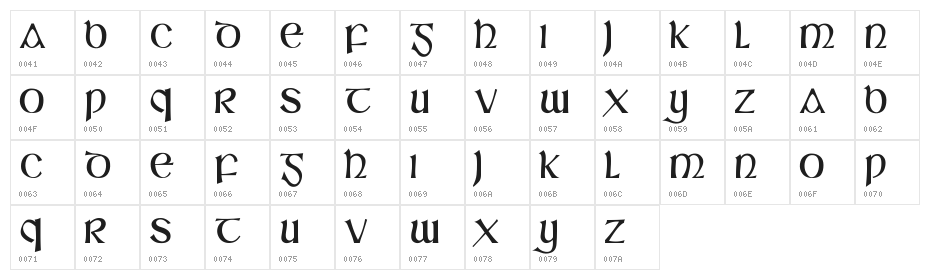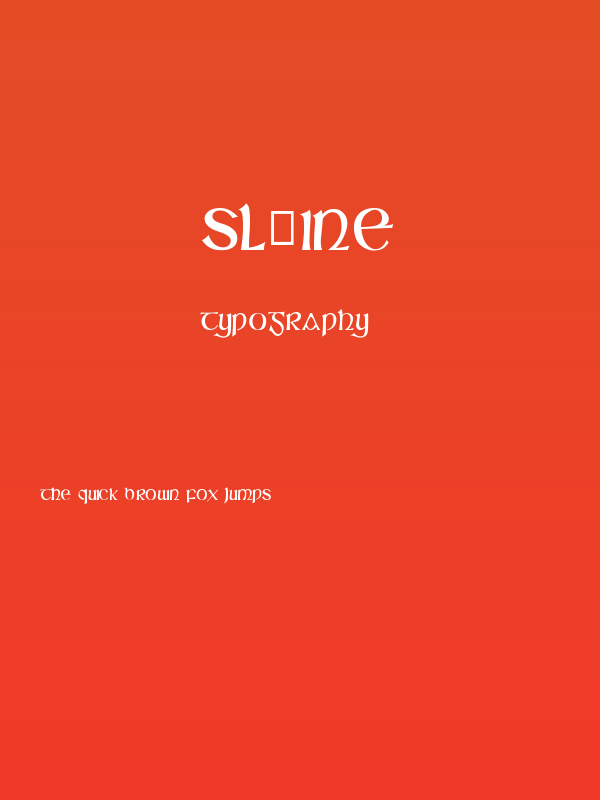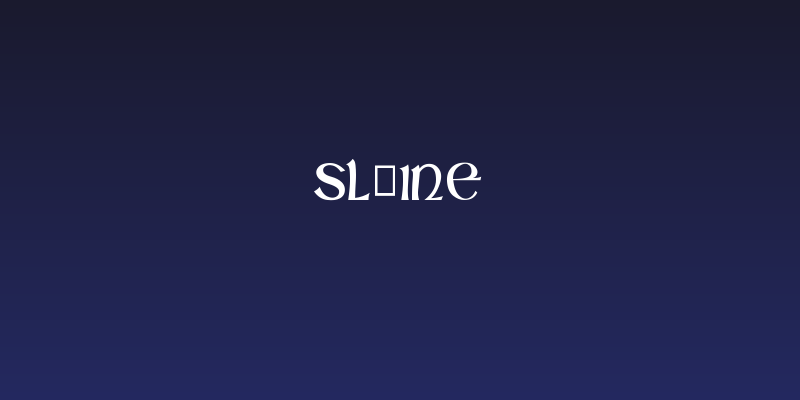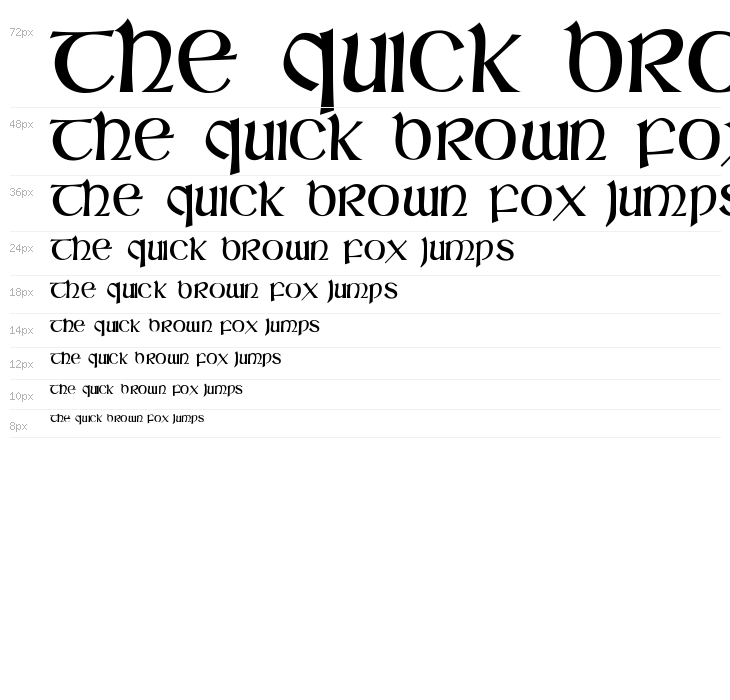
Sláine Font
| 分类 | Script |
| 整体风格 | Vintage |
| 使用场景 | Logos, Headlines, Posters |
| 推荐项目 | Suitable for branding, posters, book covers, and any design needing a historical or gothic touch. |